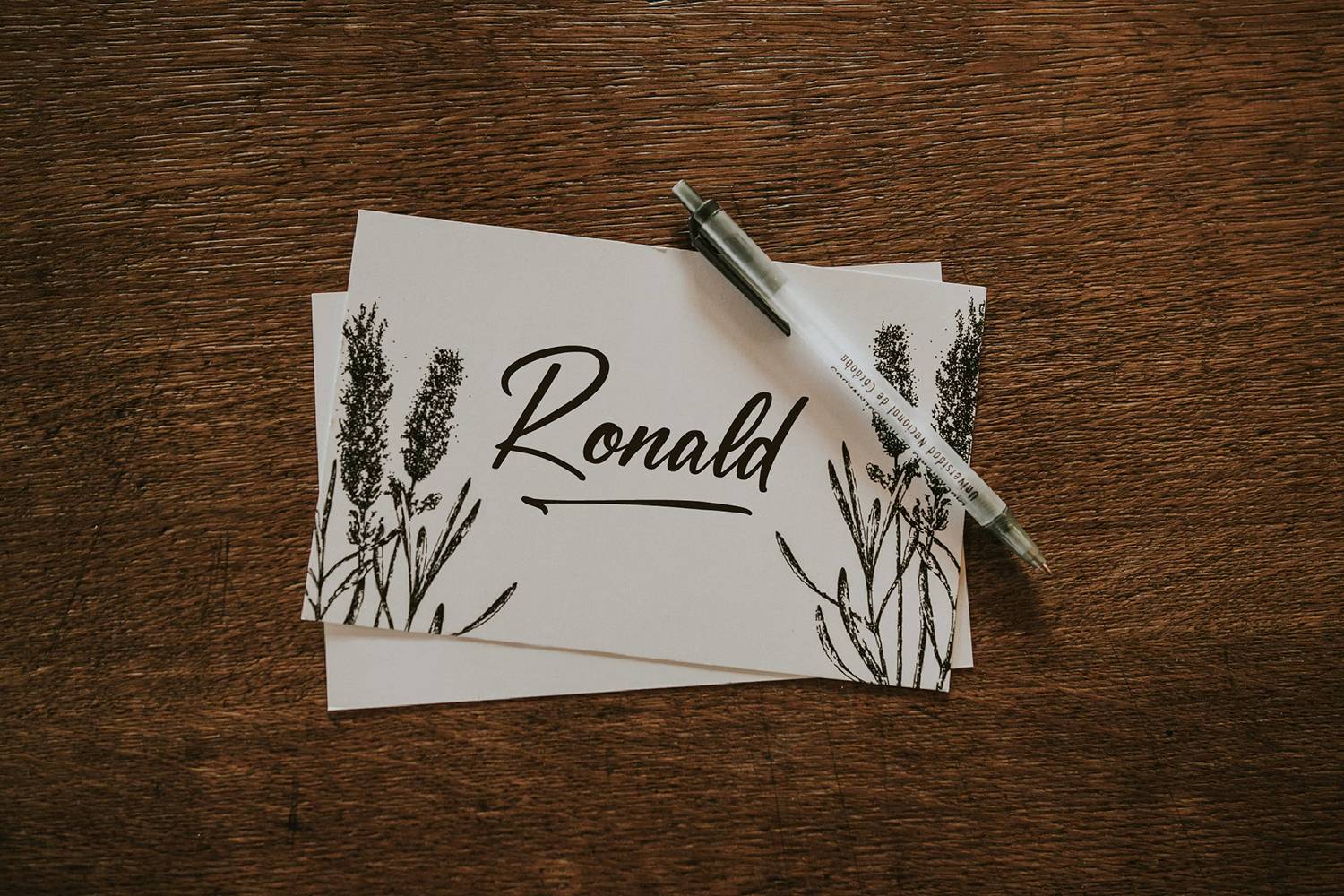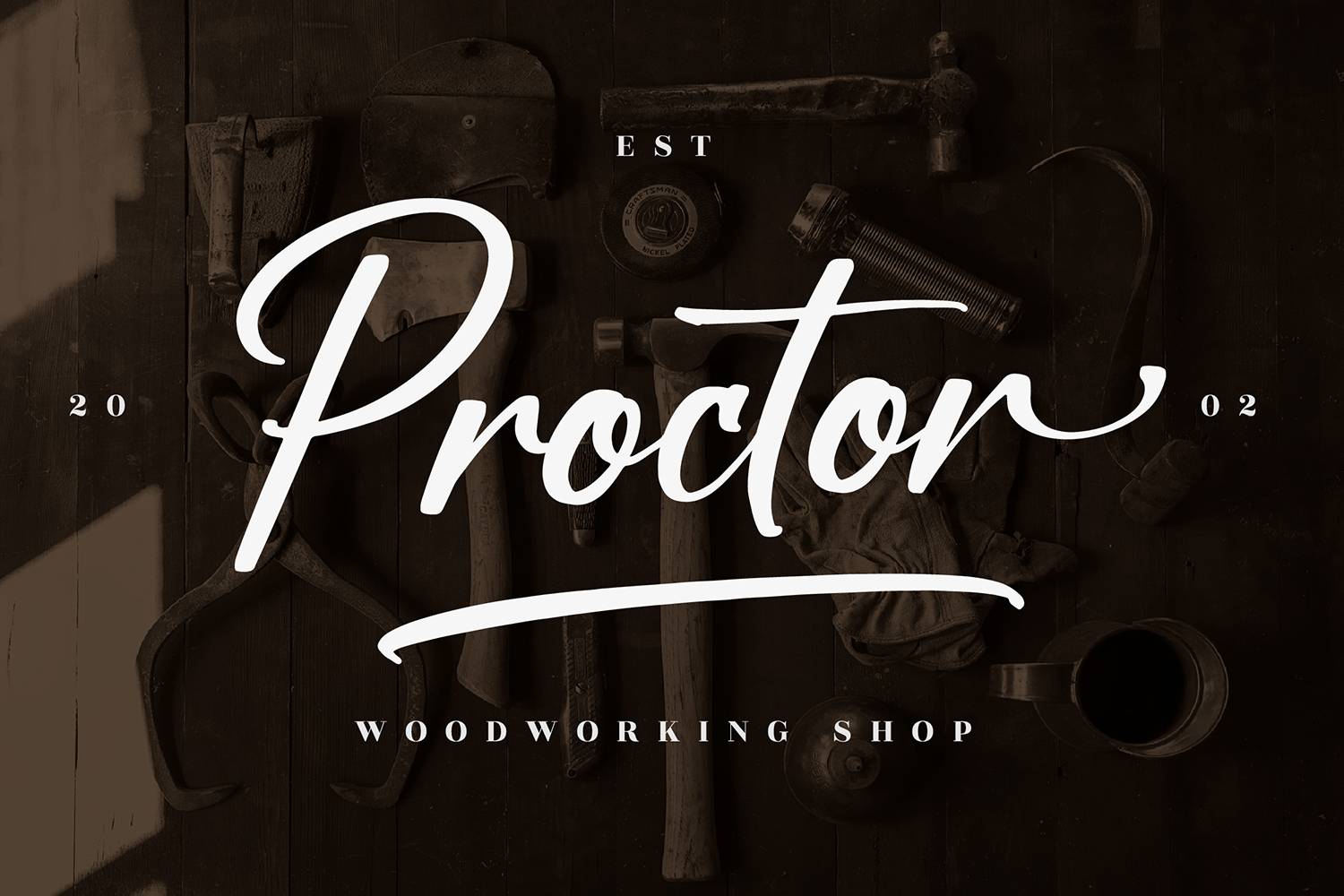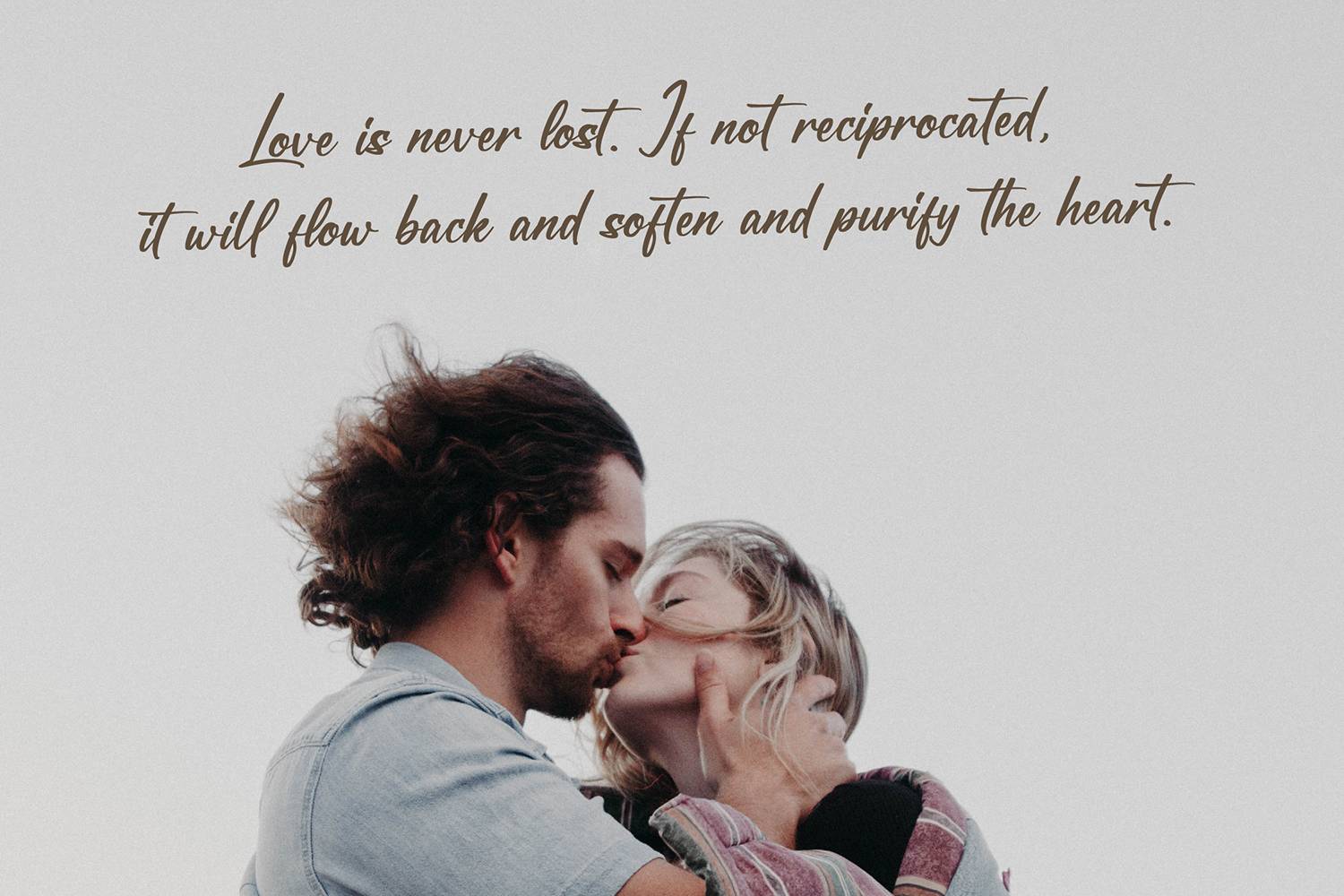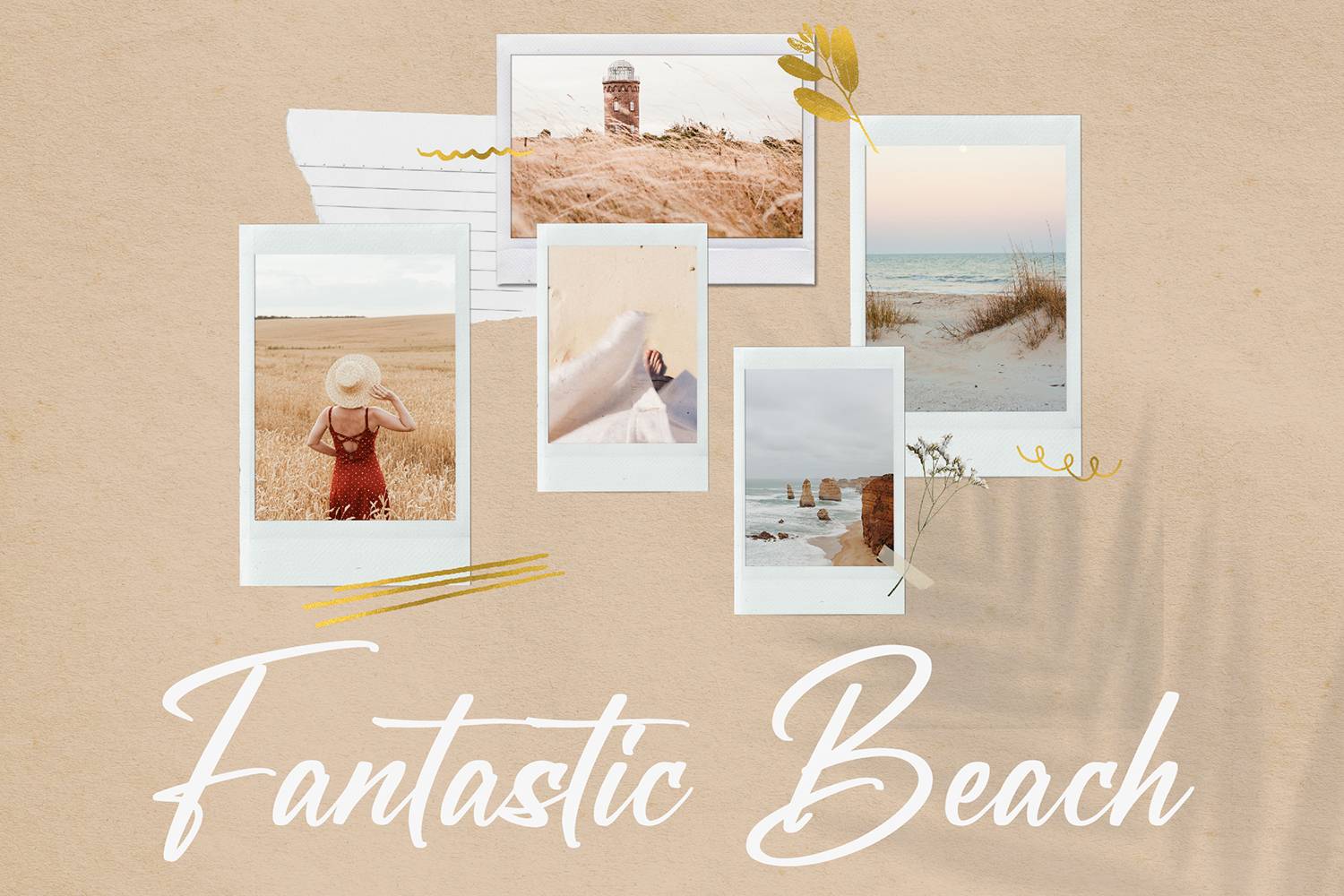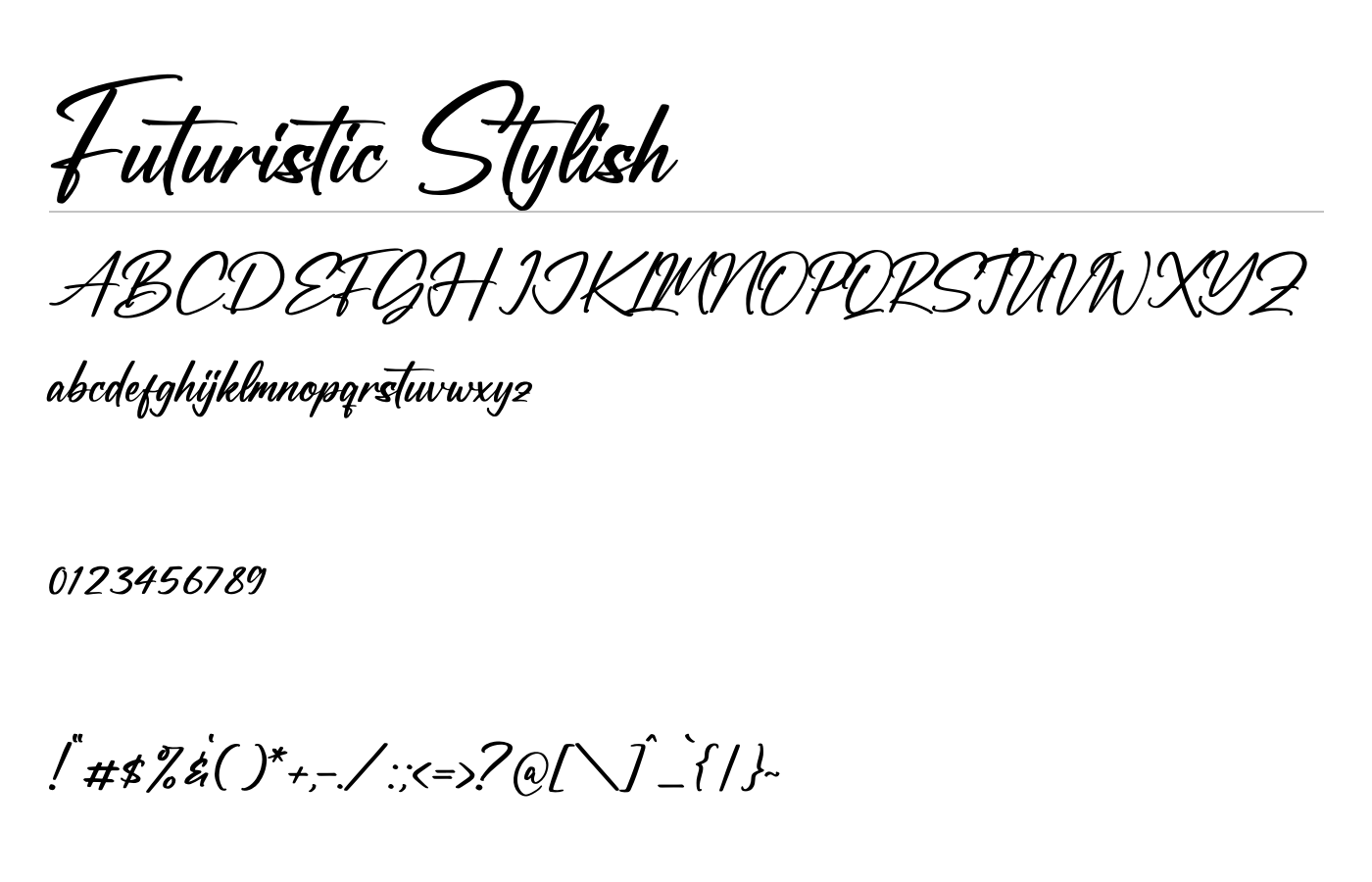
Futuristic Stylish is an elegant script font with smooth, flowing strokes that combine a modern handwritten feel with a touch of sophistication. Its slender, slightly condensed letterforms and distinctive curves make it perfect for stylish branding, invitations, and creative headlines where a refined yet contemporary look is desired. This font works beautifully in fashion, beauty, and luxury contexts, adding a personal and artistic flair to any design.
Futuristic Stylish Font
About Futuristic Stylish Font